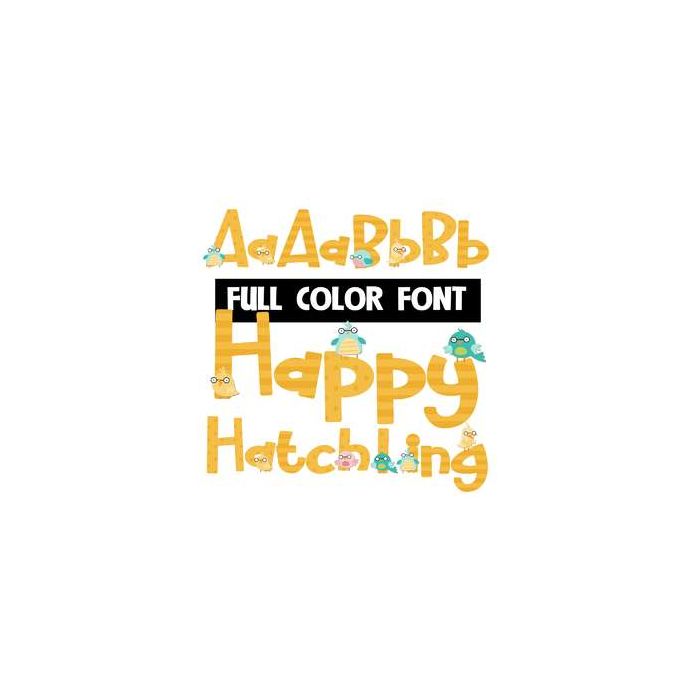
This full-color font features little hatchling birds with glasses. There is an alt case with a blank upper and lowercase that you can access through Silhouette's glyph map.